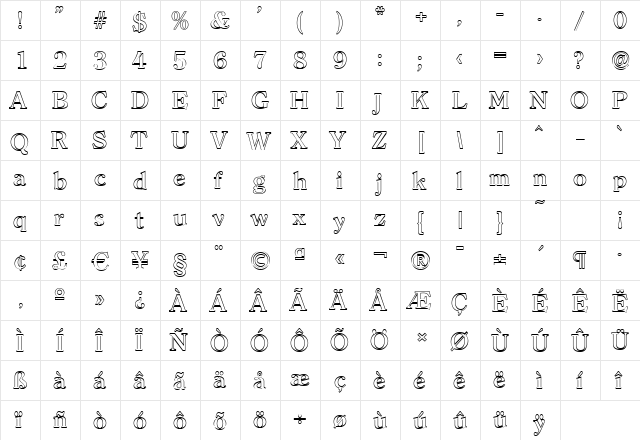
ChristianBeckerOutline-Medium Regular
Design Context for ChristianBeckerOutline-Medium Typeface
ChristianBeckerOutline-Medium is built around its visual character rather than neutral utility — its distinctive forms are designed to make an impression at display sizes.
Font Pairing: Pair with a clean neutral sans-serif for body copy to let ChristianBeckerOutline-Medium's character lead without overwhelming the composition.
Pro Tip: Use ChristianBeckerOutline-Medium exclusively at display sizes — it was designed to be seen, not read at length. Let a neutral companion handle body copy.